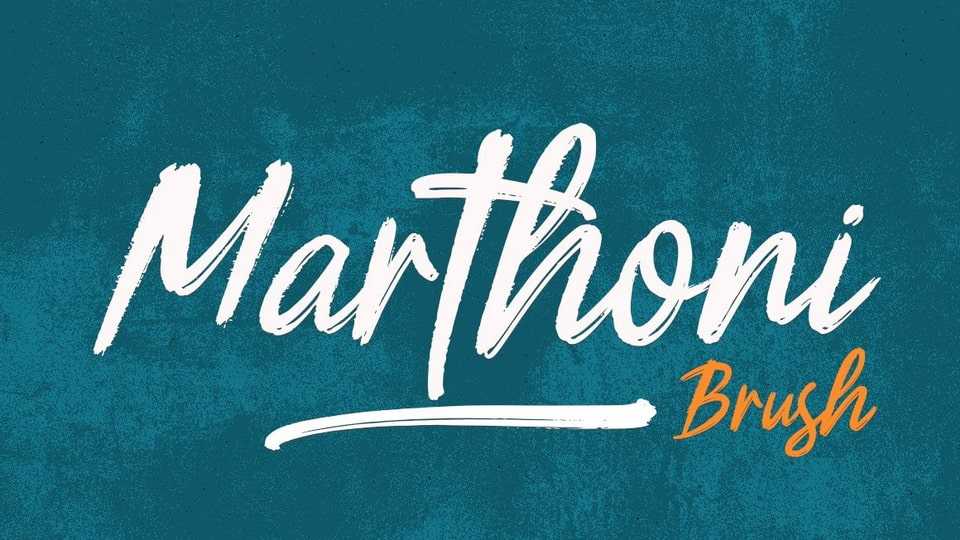
Download Marthoni font, a cool and brushed handwritten typeface, crafted to give your headlines and logotype projects a stylish touch. This font reads as strong, confident, and dynamic and can add tons of nostalgic character to your designs.